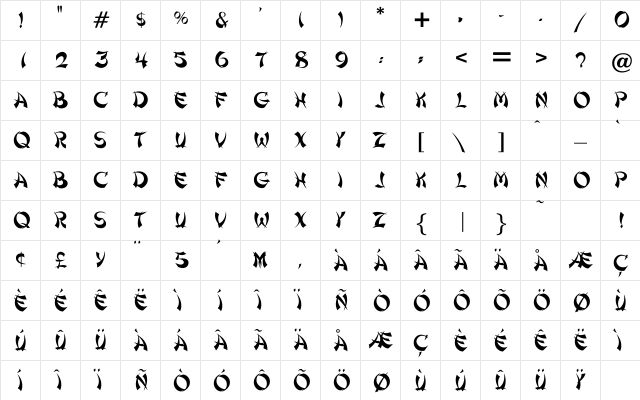
Shantung Regular
Design Context for Shantung
Shantung is a composed and adaptable typeface that performs quietly and consistently across a wide range of design contexts.